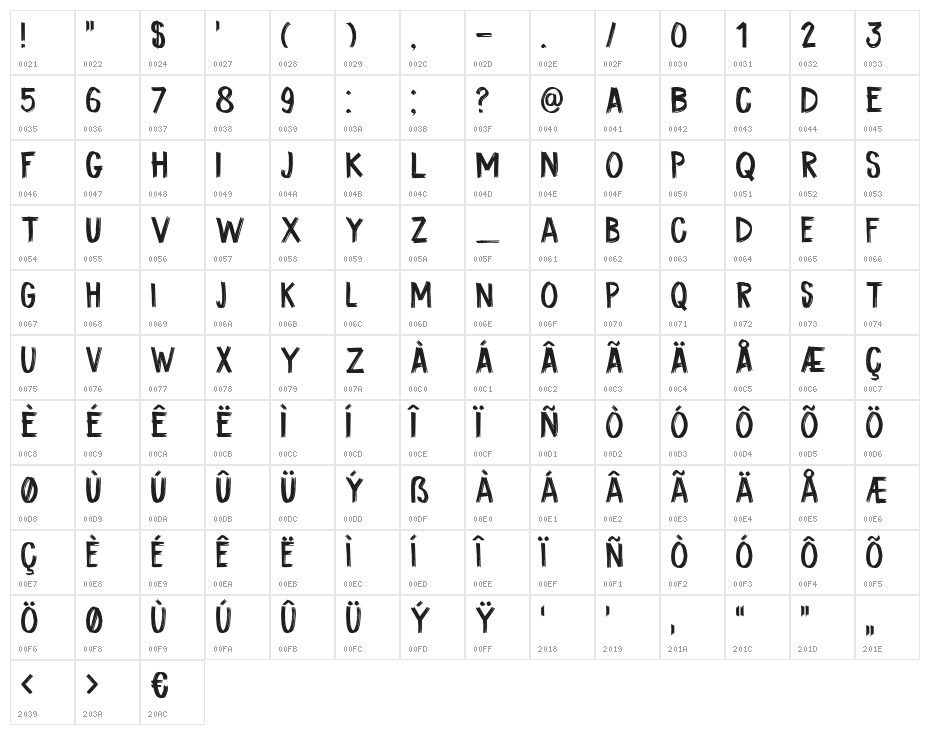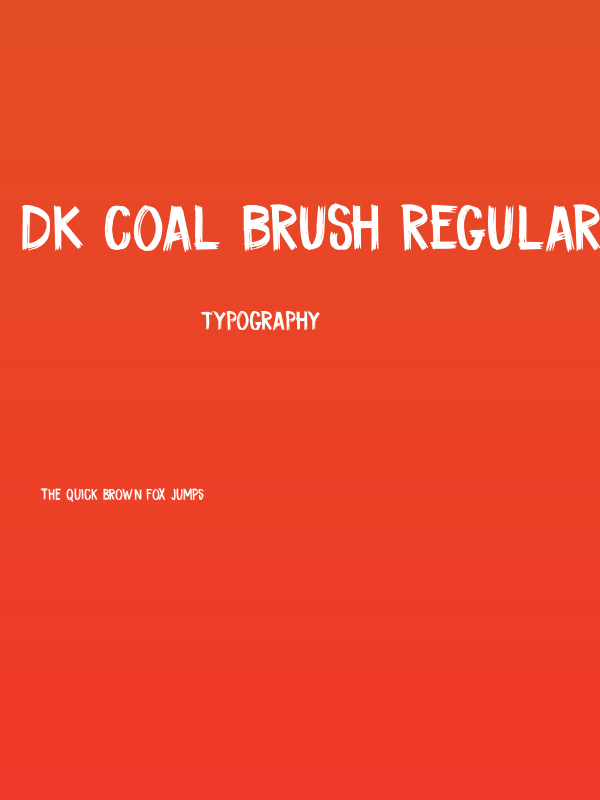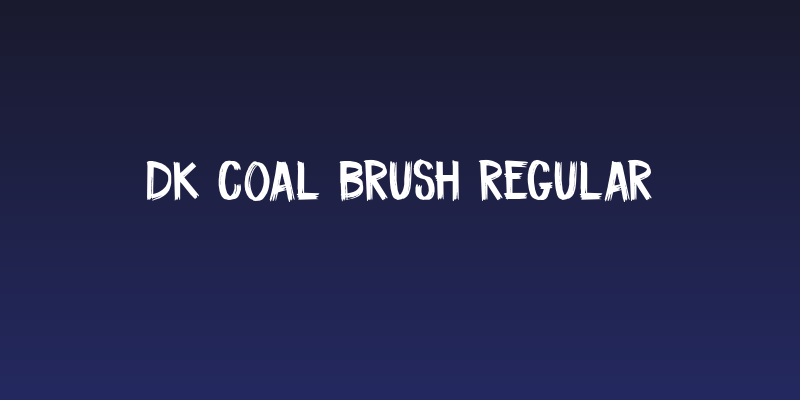
DK Coal Brush Regular Font
DK Coal Brush Regular Description
This font features a bold, brush-like appearance with a hand-drawn aesthetic. The strokes are uneven and textured, giving it a dynamic and energetic feel. Each character is distinct with a rough, artistic edge, making it ideal for projects that require a creative and informal touch. The uppercase and lowercase letters maintain consistency in style, while the numbers and special characters complement the overall design. The font's unique style is perfect for adding a personal and artistic flair to any design.
| Overall Style | Artistic, Creative |
| Proposed Projects | Ideal for posters, artistic projects, branding, and creative advertisements. |